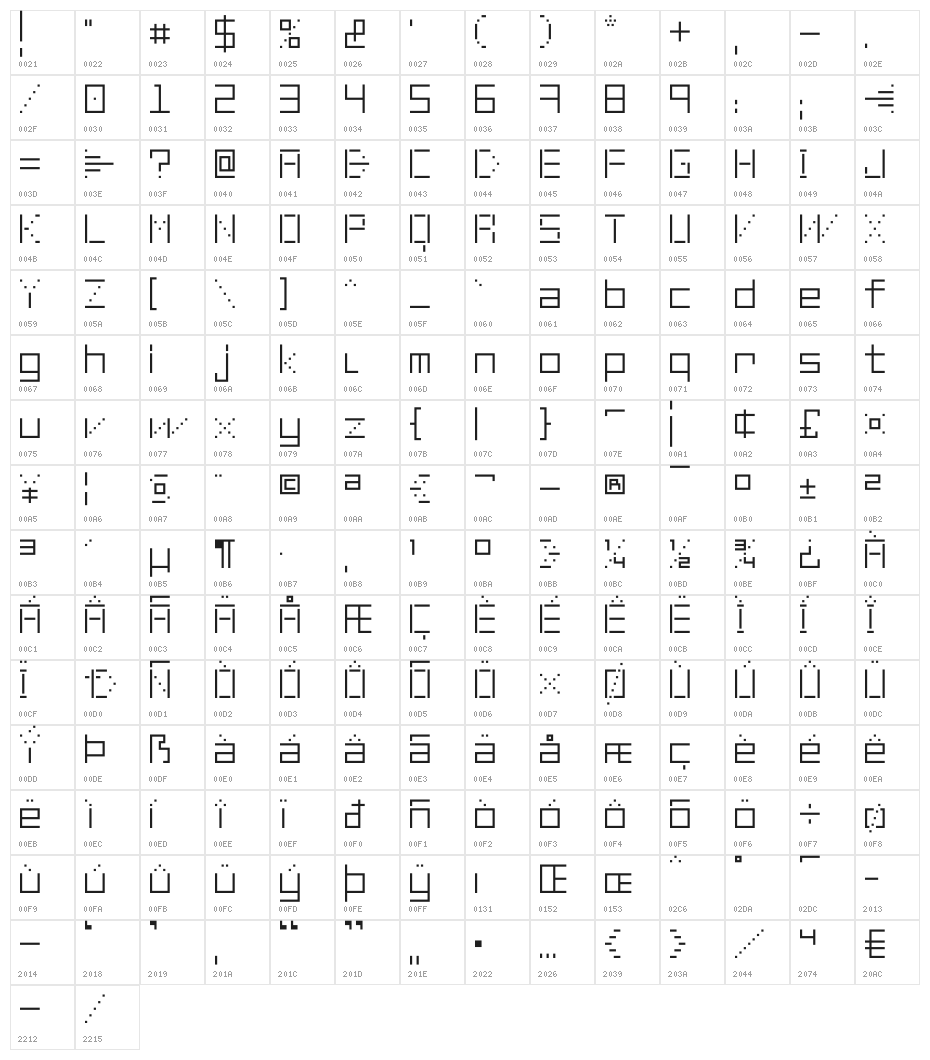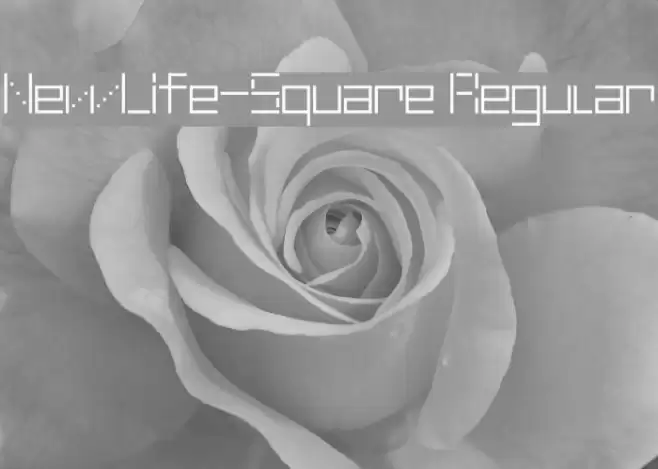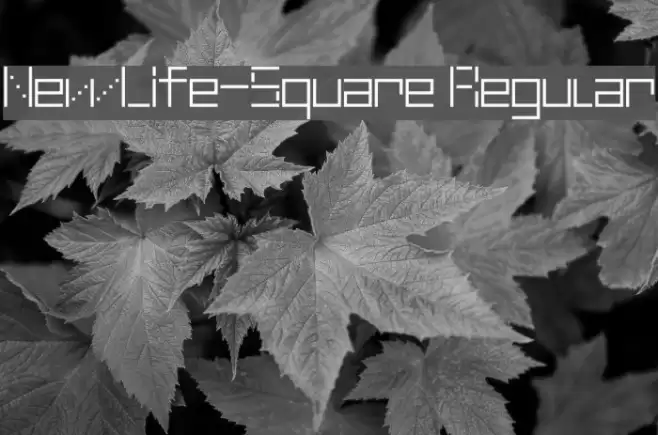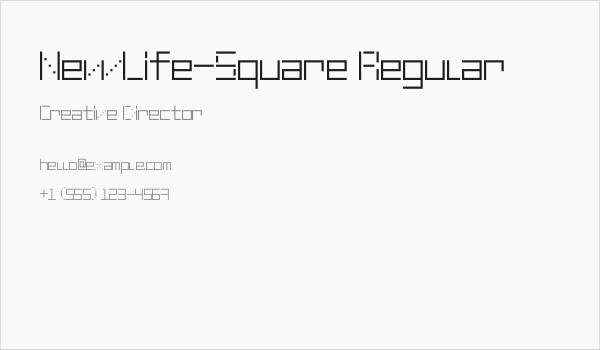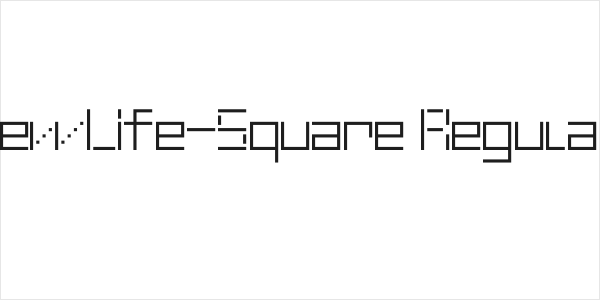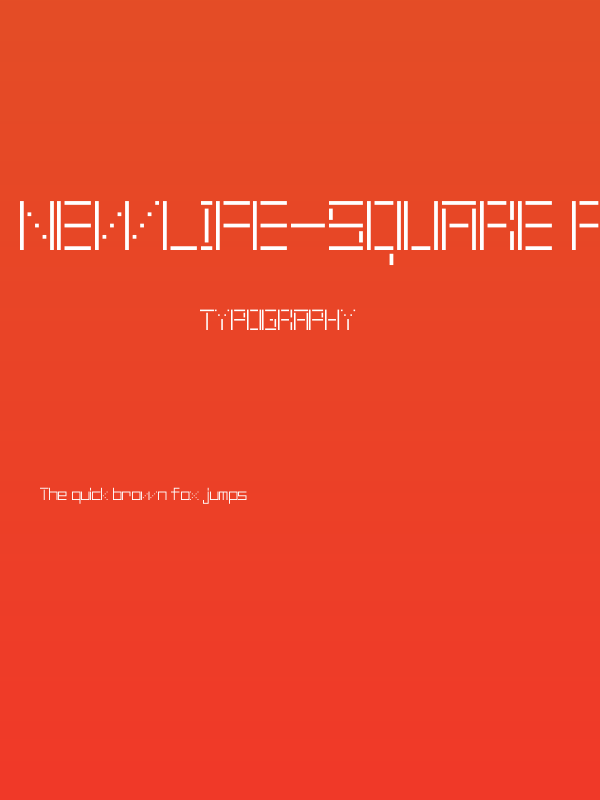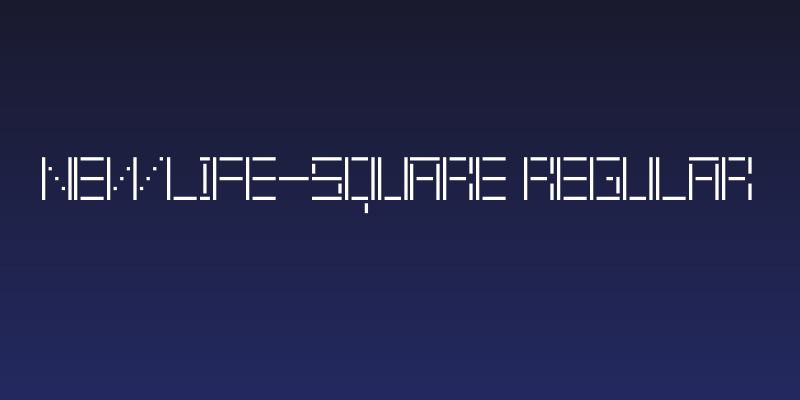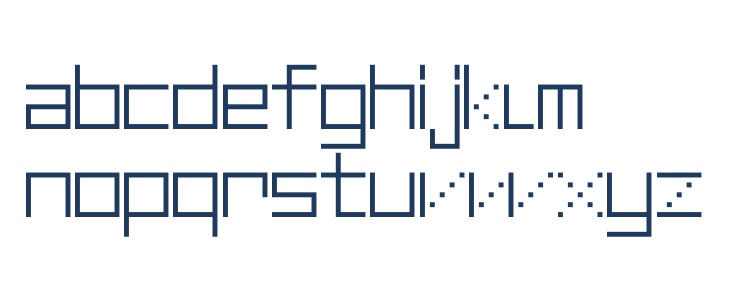
NewLife-Square Regular Font
NewLife-Square Regular Description
This font features a geometric, square-based design with a modern and digital aesthetic. The characters are constructed with a grid-like pattern, giving it a pixelated appearance reminiscent of early digital displays. The uppercase and lowercase letters maintain a consistent height, contributing to a uniform look. The numerals and special characters follow the same structured style, enhancing the cohesive feel of the font. Its clean lines and sharp angles make it suitable for projects that require a futuristic or tech-oriented vibe.
| Proposed Projects | Ideal for digital interfaces, tech branding, video game graphics, and futuristic design projects. |